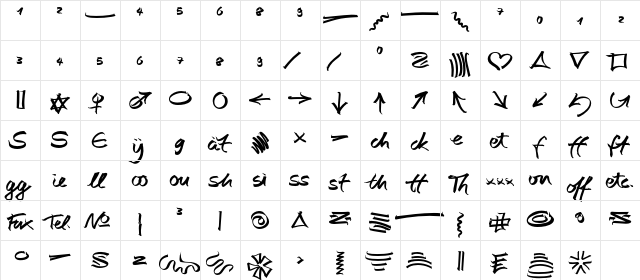
AutographScriptEF BoldExtras Font Preview
Design Context for AutographScriptEF Typeface
AutographScriptEF brings a calligraphic fluidity to the page — its connecting strokes and expressive curves give it an unmistakably human quality. The heavy weight commands attention and anchors typographic hierarchies.
Font Pairing: Combine AutographScriptEF with a simple geometric sans for maximum contrast — the tension between flowing curves and clean structure is a classic typographic pairing.
Pro Tip: Pair AutographScriptEF with a clean sans-serif for supporting text. The contrast between fluid script and geometric structure creates an elegant typographic hierarchy.